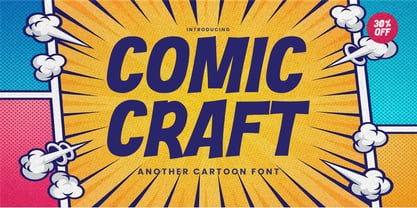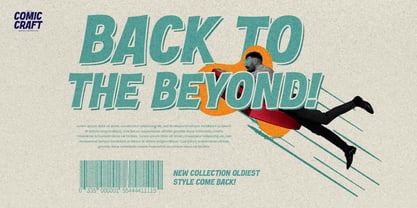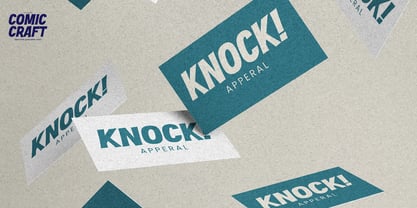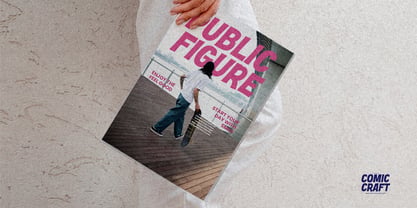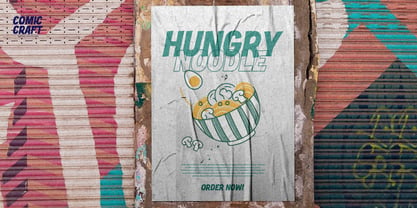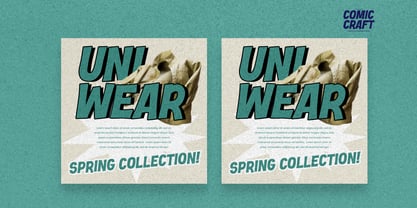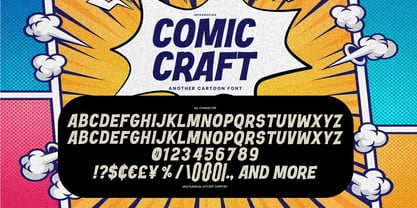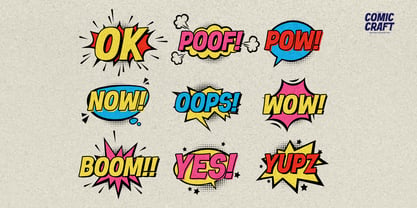
Comic Craft
by Gassstype
The Comic Craft Font Family was designed by Abdul Malik Wisnu and published by Gassstype. Comic Craft contains 1 styles. More about this family
Introducing our new product, Font Comic Craft, a delightful cartoon font that features a textured natural style. This display font is perfect for your next creative project, including logos, printed quotes, invitations, cards, product packaging, headers, logotypes, letterheads, posters, and more. Font Comic Craft is ideal for watermarking photography and excels in branding, advertisements, product designs, stationery, wedding designs, labels, and special events. Its charming, authentic, and relaxed characteristics provide a more natural look to your text, making it a fantastic choice for anything that needs a handwritten touch.
Designers: Abdul Malik Wisnu
Foundry: Gassstype